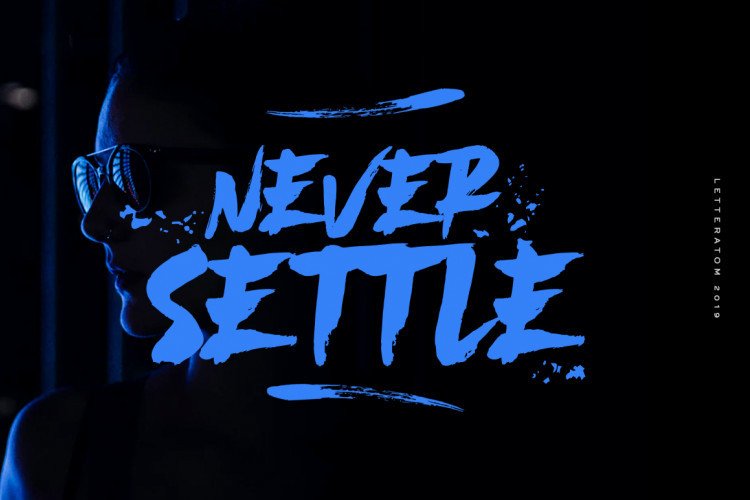
Never Settle Brush Font
Never Settle Brush Font is the Letter of Natural Handwriting with acrylic paint. This is perfect for logos, book titles, websites, blogs, quotes, cool letters, for clothes, or any design project.